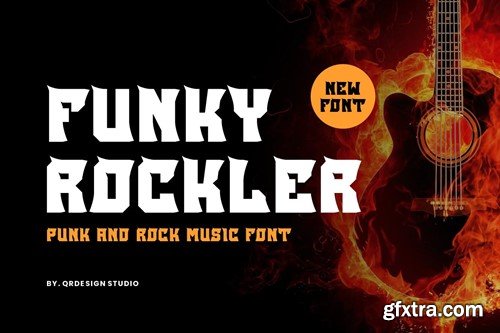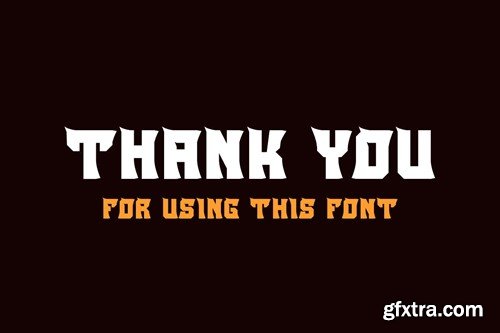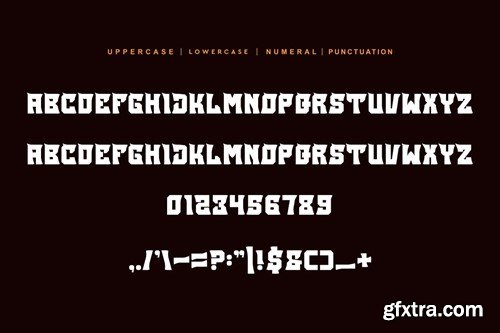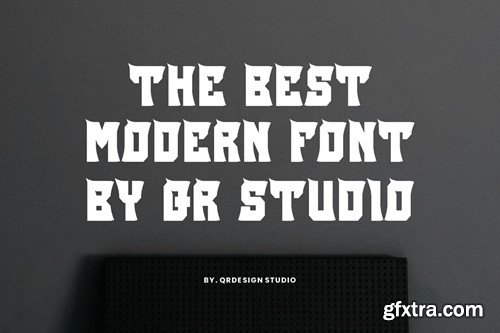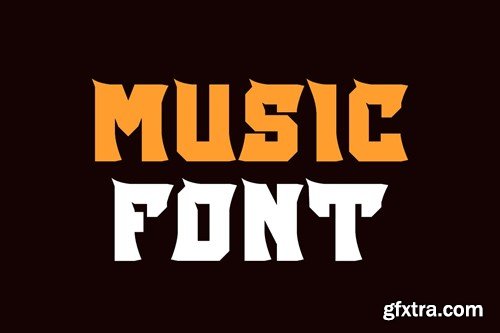
Funky Rockler - Punk & Music Font DM9YH3C
Funky Rockler - Punk & Music Font
Funky Rockler Font is a bold and authentic display font. The font is suitable for any branding project like music, poster, logo, sport, and many more. Outstanding in a wide range of contexts.